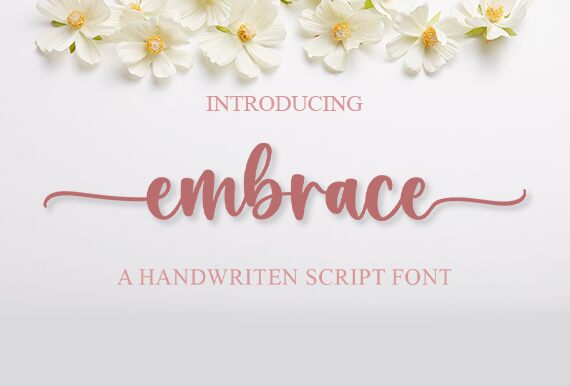
Embrace
Embrace, the bold handwritten font designed by Graphix Line Studio, is the perfect choice for projects that require a touch of personality and creativity. Its unique style adds a playful charm to any design, making it suitable for anything from wedding invitations to children's book covers. The bold weight ensures that your text will stand out and grab attention, while the handwritten style adds an authentic feel. Whether you're designing a logo, poster or website header, Embrace is sure to bring your project to life with its charming character and eye-catching appeal.